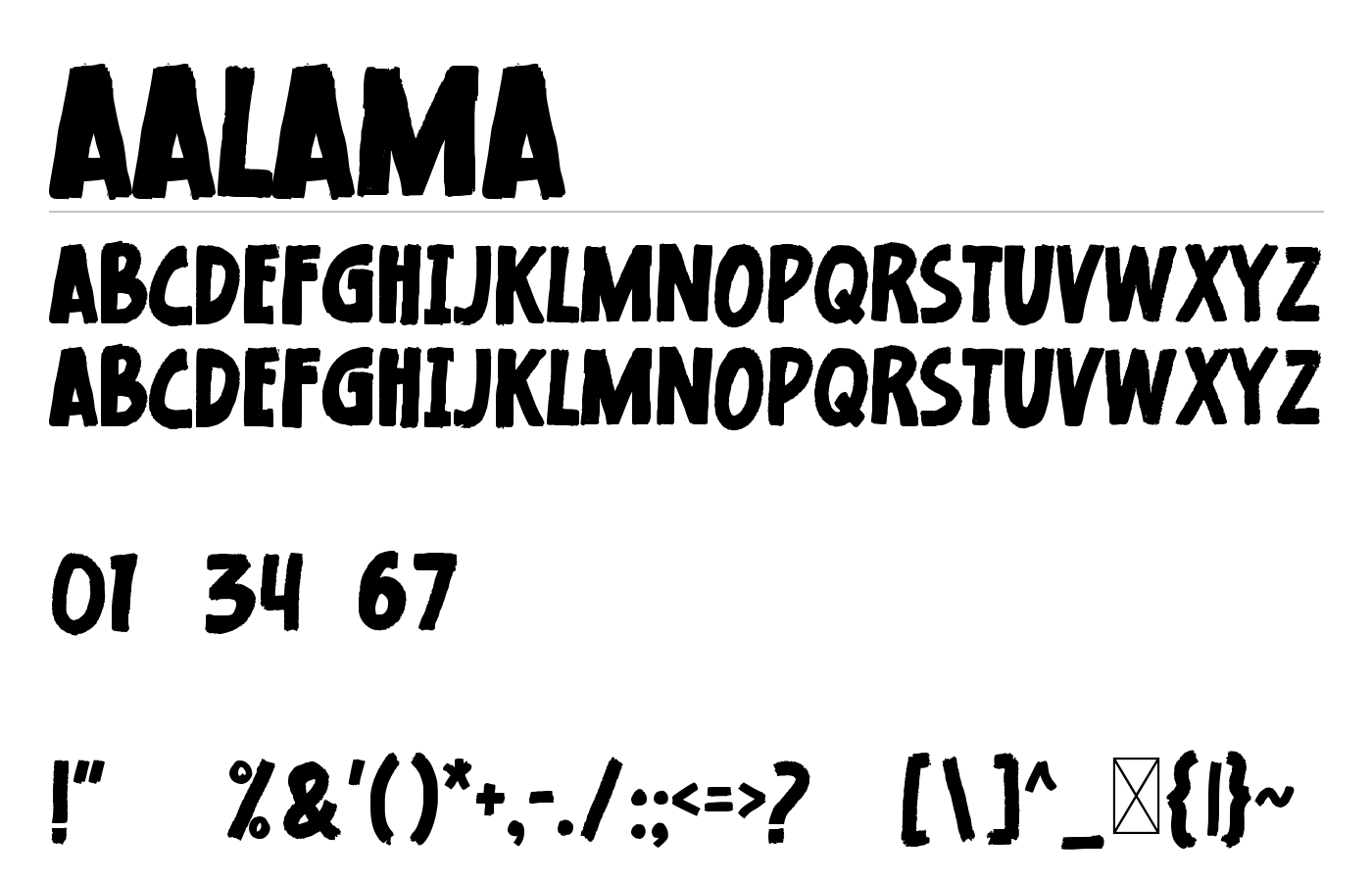
Aalama is a bold, hand-drawn sans serif font with a strong, playful character and rough, brushstroke texture that adds personality and energy. Its tall, condensed letterforms and uneven edges give it an informal, artistic feel, making it great for eye-catching headlines, posters, and creative branding that want to convey a fun and dynamic vibe. This font works well where a bold, handcrafted look is needed to stand out and make a memorable impression.
Aalama Font
About Aalama Font